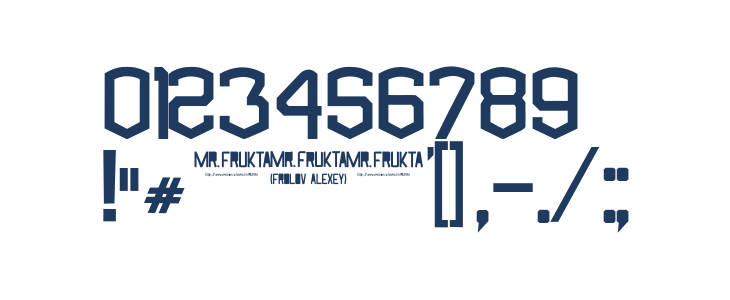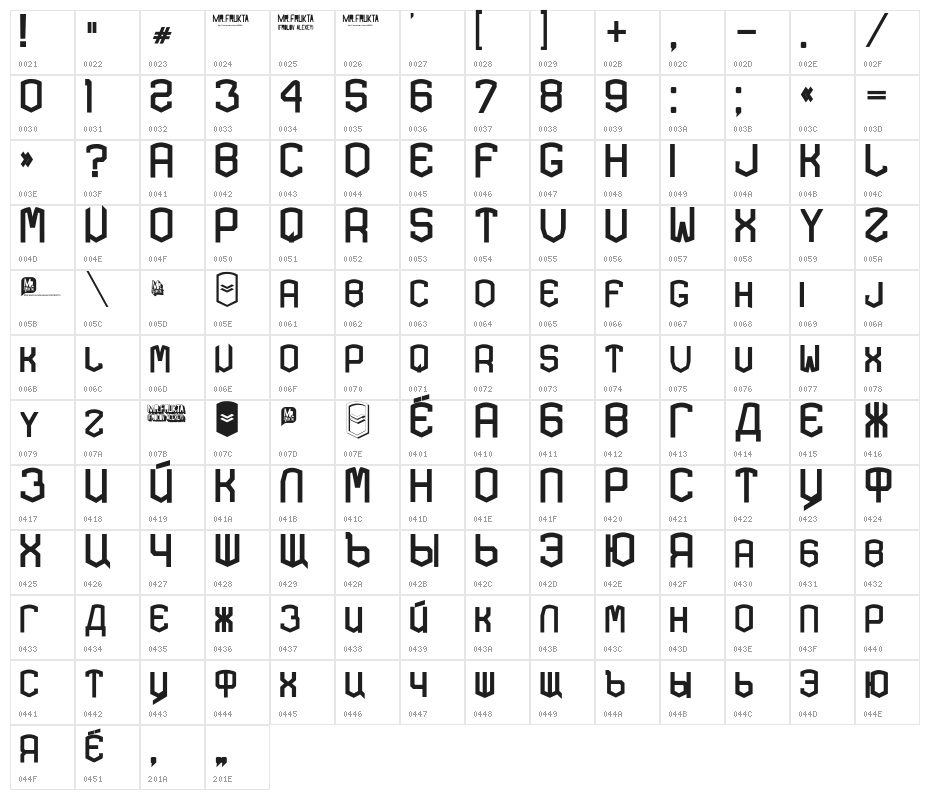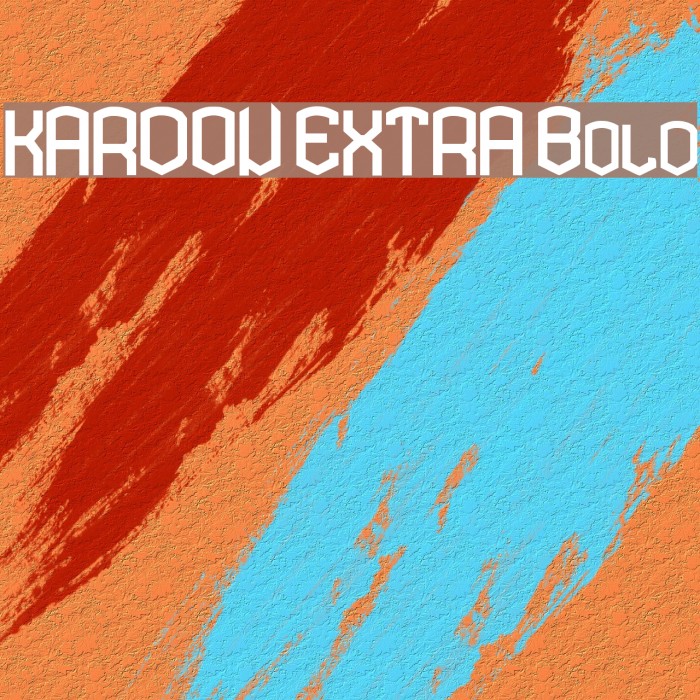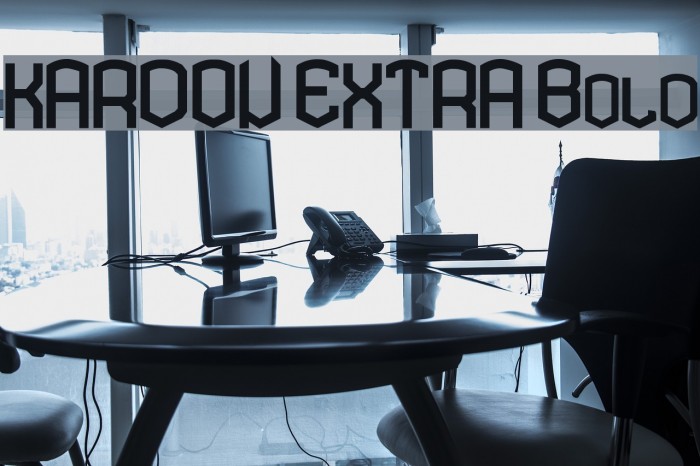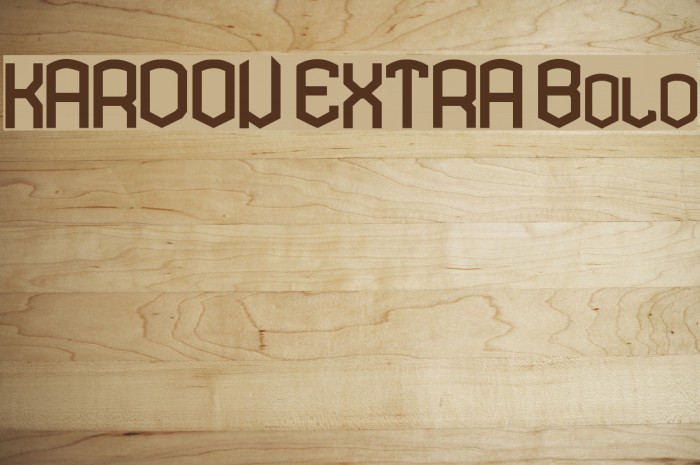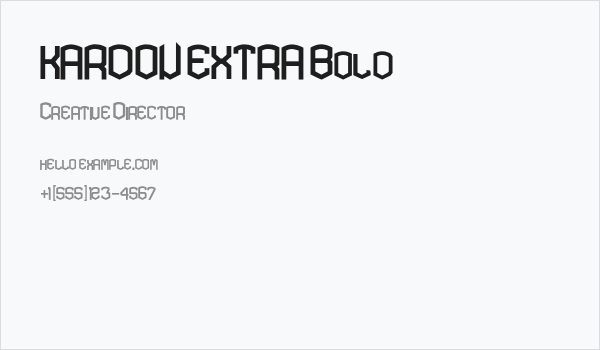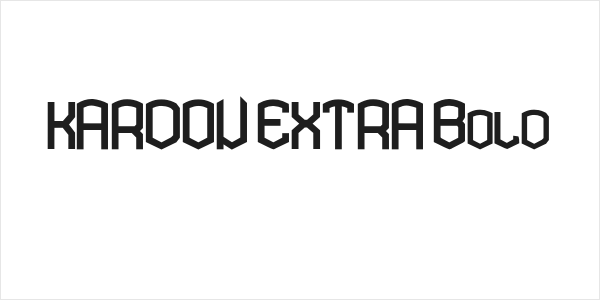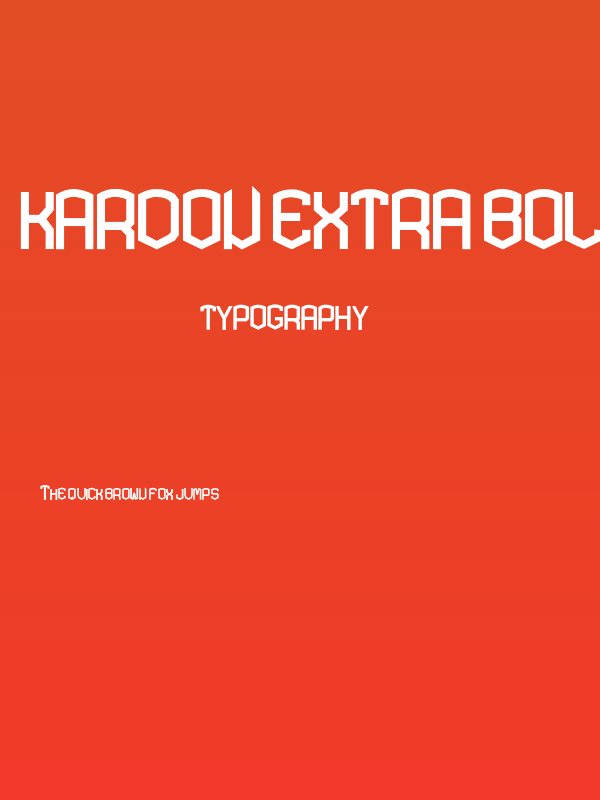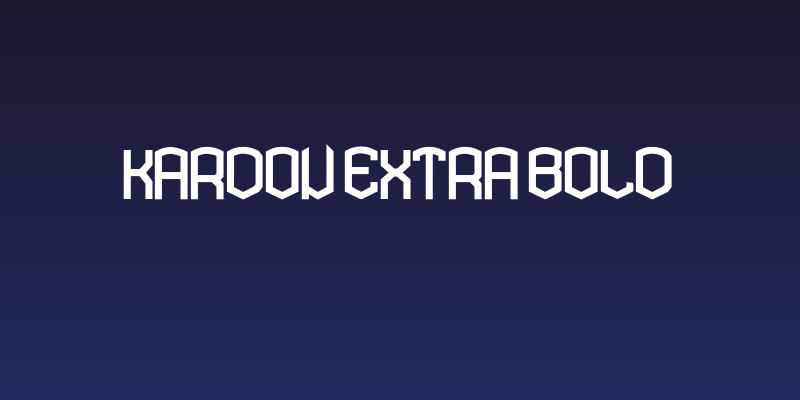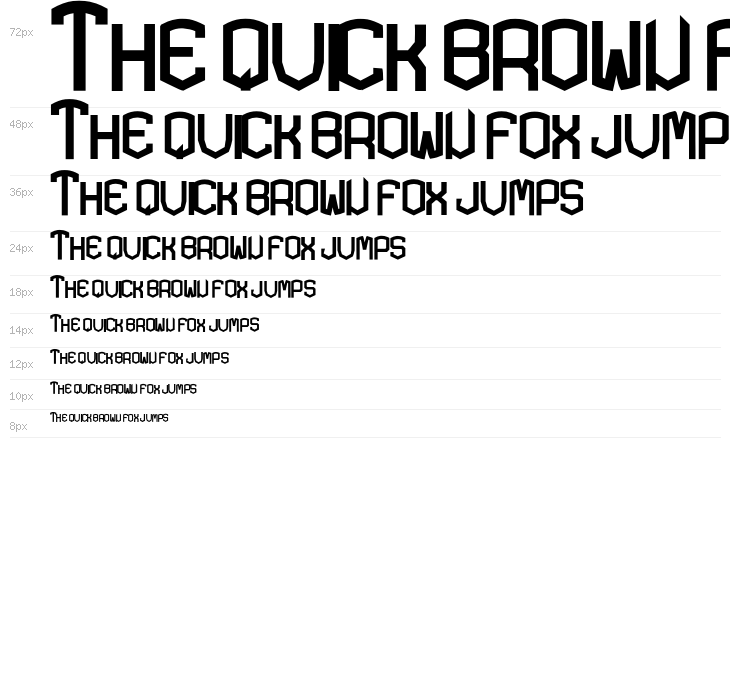
KARDON EXTRA Bold Font
KARDON EXTRA Bold Description
This font features a bold, geometric design with angular edges and a strong presence. The characters are constructed with thick lines and sharp corners, giving it a futuristic and industrial feel. The uppercase and lowercase letters maintain a consistent style, with a uniform height and width that contributes to its bold appearance. The numerals and special characters follow the same design principles, ensuring a cohesive look across all elements. This font's unique style makes it stand out, making it ideal for projects that require a modern and edgy aesthetic.